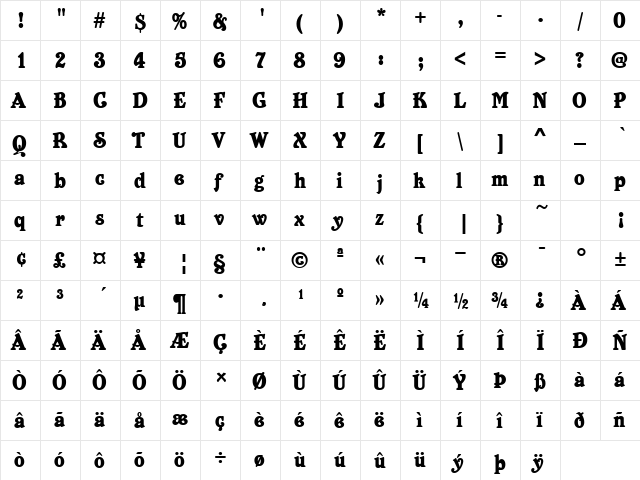
Belgravia Regular
Design Context for Belgravia Typeface
Belgravia takes a measured approach to typography — its balanced proportions and neutral character make it a reliable workhorse for both digital and print work.